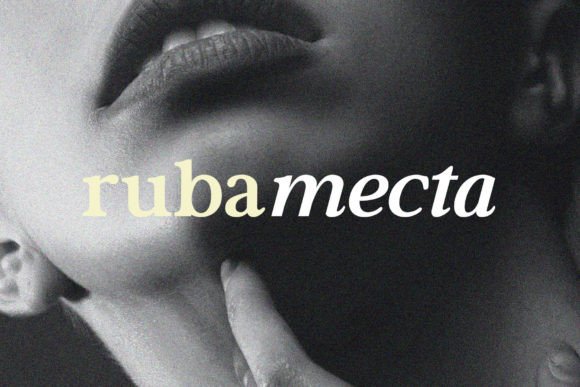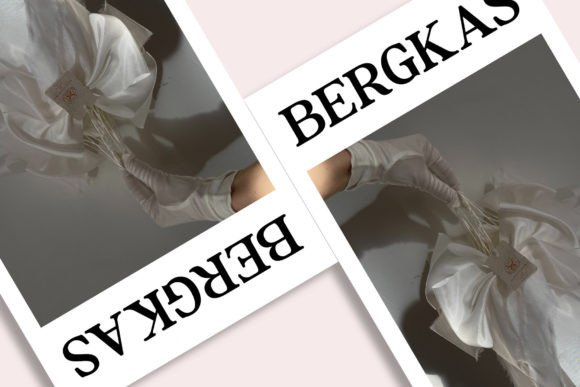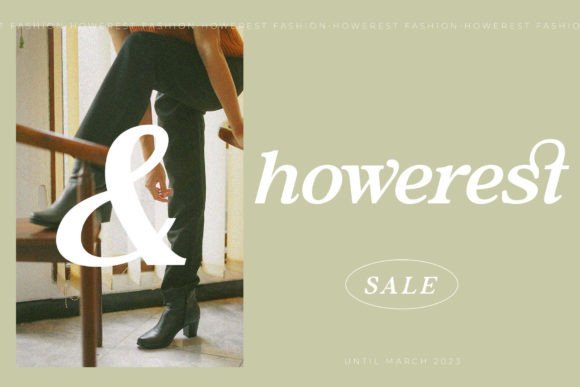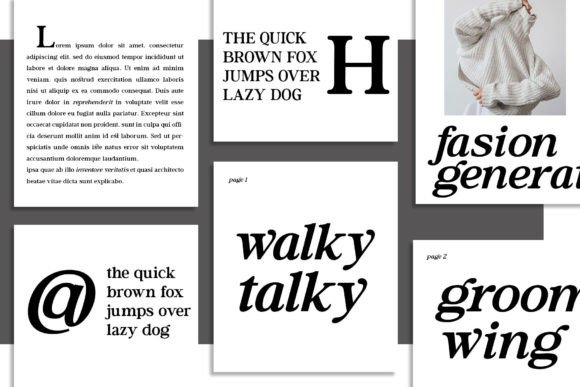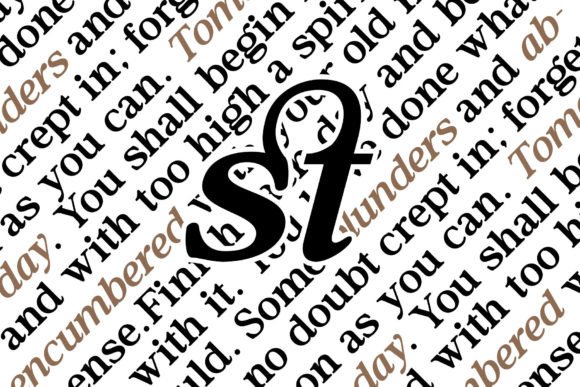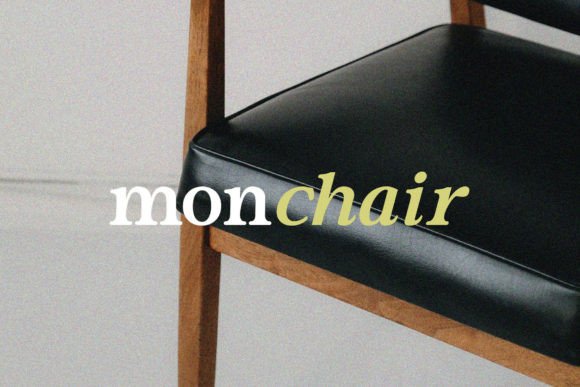
The Perfect Typographic Match
Remember the moment when you’re brainstorming a project and suddenly, a font pops into your mind? The one that screams elegance and sophistication, making your design come alive? For designers, this is often the ‘aha’ moment that sets the tone for an entire project.
For those in search of that perfect typographic match, look no further than the Bigest Hopefully Font. This stunning serif font boasts a classic, clean, and bold style that’s sure to elevate any design. Its versatility makes it ideal for a wide range of projects, from high-end branding to editorial content.
As a valuable asset for designers, the Bigest Hopefully Font offers a level of sophistication and refinement that’s hard to find in other fonts. Its impeccable typography and elegant style make it the perfect choice for those seeking to make a lasting impression.
Bigest Hopefully Font Key Features
- Font Family: Bigest Hopefully Font is a custom font family designed for use in digital and print media. It includes 6 font styles: Light, Regular, Bold, Italic, Bold Italic, and Outline.
- Unique Characteristics: Bigest Hopefully Font features a unique blend of modern and vintage elements, with distinctive letterforms and subtle texture effects.
Bigest Hopefully Font Review
Overall, I was initially drawn to “Bigest Hopefully Font” due to its quirky and playful vibe. ✨ The font’s unconventional design and varied line weights made it an interesting choice for creatives looking to add some personality to their projects.
- Unique design: “Bigest Hopefully Font” stands out from more traditional fonts, making it perfect for designers who want to add some flair to their work.
- Varied line weights: This feature allows for a high degree of customization and flexibility when it comes to text styling.
- Fun, friendly feel: The font’s overall aesthetic is approachable and inviting, making it suitable for projects that require a lighthearted tone.
- ⚠️ Limited legibility: While the font is visually appealing, it can be challenging to read, especially at smaller font sizes.
- ⚠️ Limited support for languages: “Bigest Hopefully Font” may not be suitable for projects that require text in languages other than English.
While “Bigest Hopefully Font” has its limitations, it’s still a solid choice for designers who want to add some personality to their work. With careful consideration of font sizes and line weights, this font can be a great asset for projects that require a playful, approachable tone.
Bigest Hopefully Font is ideal for:
- Creating eye-catching headings and titles.
- Adding a touch of personality to your designs.
- Highlighting important information or calls-to-action.
Alternatives to Bigest Hopefully Font
Open Sans is a clean and modern sans-serif font. It’s highly legible and works well in various digital applications. Use Open Sans when you want a clear and professional look for your designs.
Compared to Bigest Hopefully Font, Open Sans is more versatile and suitable for a wide range of design projects. While Bigest Hopefully Font is often used for informal or humorous purposes, Open Sans is more suitable for formal and professional contexts.
Montserrat is a geometric sans-serif font inspired by urban typography. It’s highly customizable and works well in various design applications. Use Montserrat when you want a modern and edgy look for your designs.